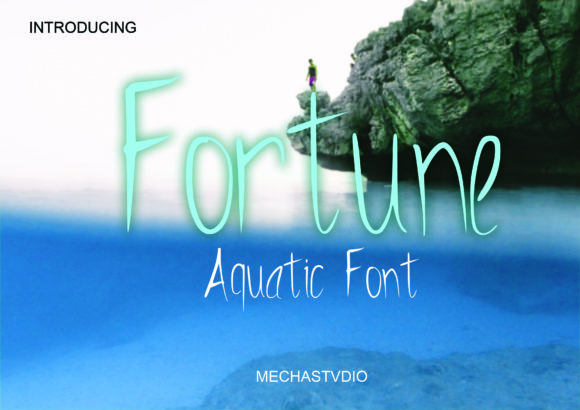
Feast your eyes upon Fortune Font, a captivating and versatile handwritten font script that will awaken your designs with a touch of elegance and modernity.
Indulge in the allure of Fortune's graceful curves and effortless flow, meticulously crafted by the creative minds at MechaStudio. Its enchanting essence is a symphony of classic sophistication and contemporary allure, making it the perfect choice for a myriad of design endeavors.
Whether you seek to craft a captivating logo that leaves a lasting impression, elevate your brand with a touch of distinction, or adorn your invitations and stationery with a hint of timeless charm, Fortune Font is your indispensable companion. Its versatility knows no bounds, effortlessly adapting to social media posts, website designs, and any digital canvas you desire.
Step into the realm of endless creative possibilities with Fortune Font. Let your imagination soar as you weave tales of elegance and sophistication into every design. Transform your creations into masterpieces that captivate and inspire, leaving an unforgettable mark on the hearts of all who behold them.